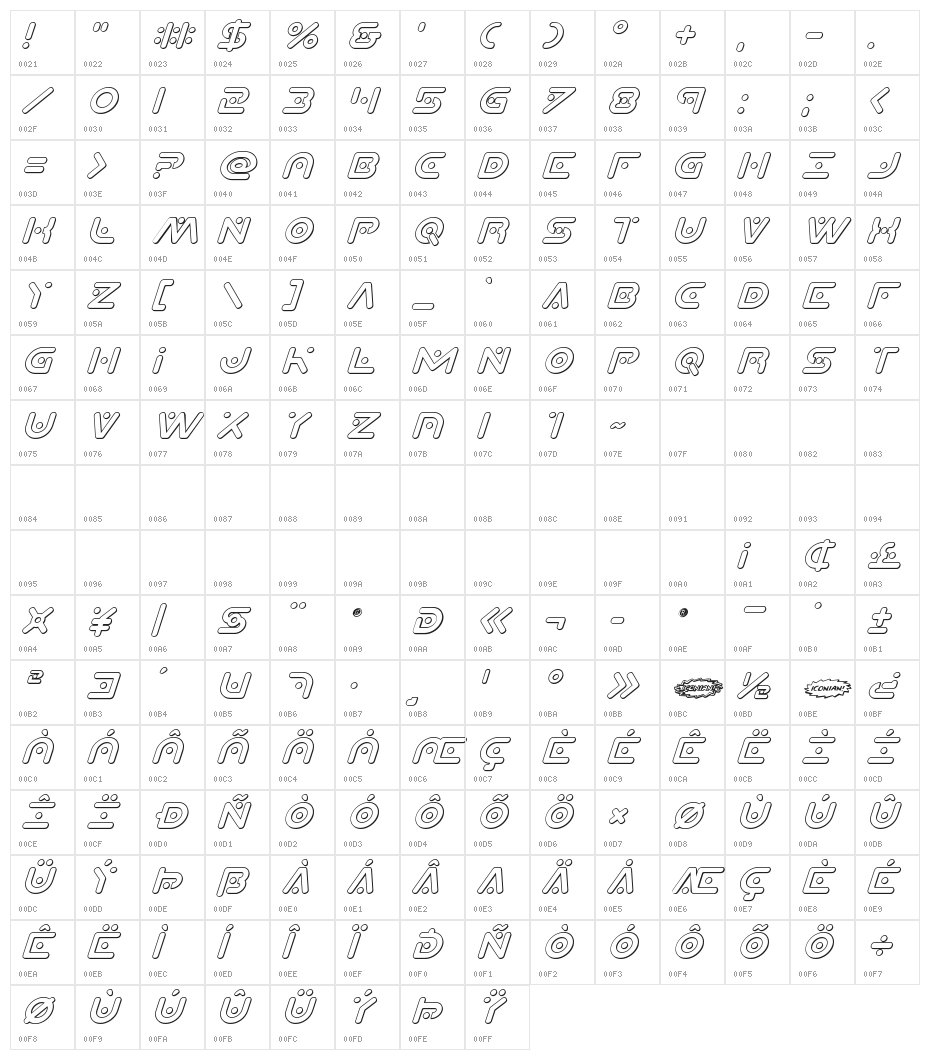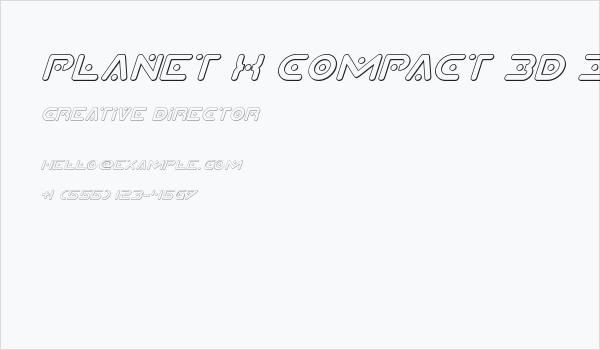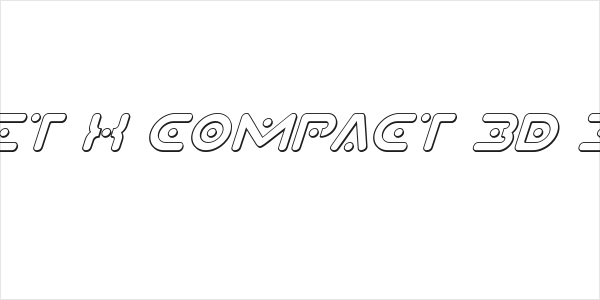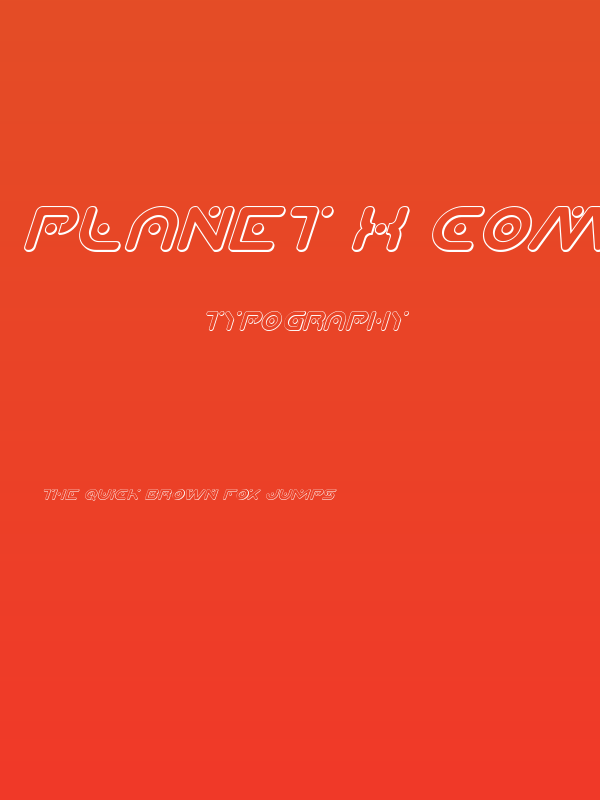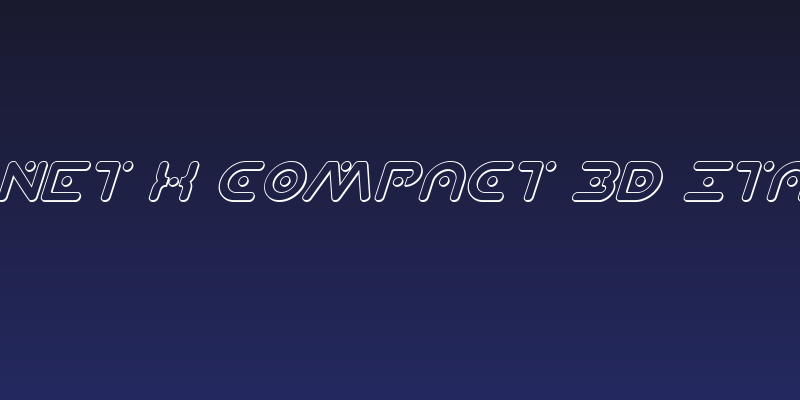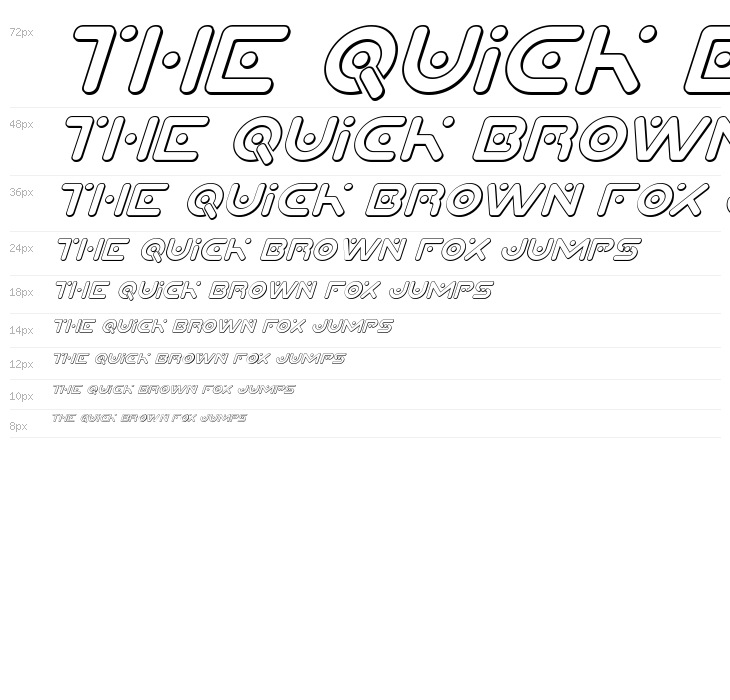
Planet X Compact 3D Italic Font
Planet X Compact 3D Italic Description
This font features a futuristic and compact design with a 3D effect, characterized by its italicized and geometric letterforms. The characters are outlined, giving them a hollow appearance that enhances the three-dimensional look. Each letter has a consistent stroke width, contributing to a uniform and cohesive style. The font's unique design includes rounded edges and smooth curves, creating a sleek and modern aesthetic. The spacing between characters is moderately tight, which complements its compact nature. This font is ideal for projects that require a contemporary and innovative touch.
| Proposed Projects | Ideal for sci-fi themed designs, technology branding, video game titles, and modern posters. |